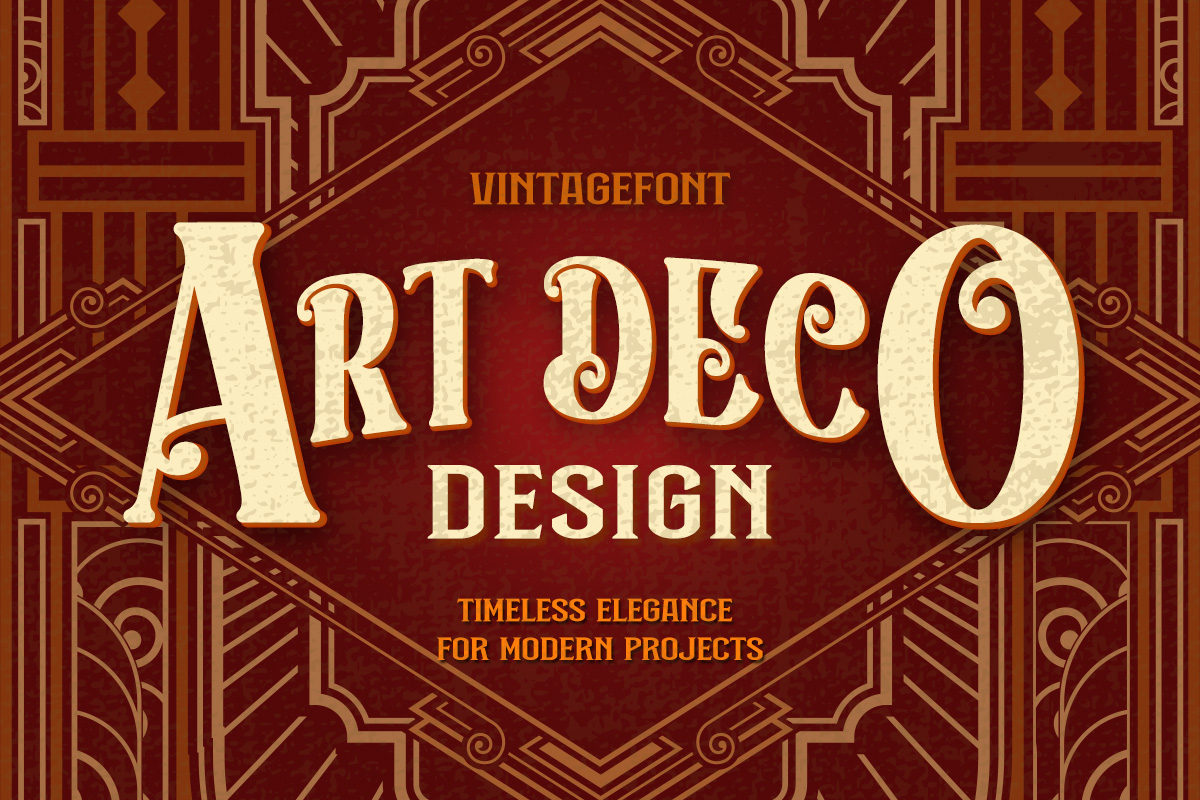
Art Deco Design: Timeless Elegance for Modern Projects
Have you heard about Art Deco? Art Deco is a design style that arose in the early twentieth century. This style continues to have an impact on the design world to this day.
This style emerged as a result of an exhibition held by the Paris art community. This exhibition featured a lot of artwork. Everything, from the metalwork to the interior design, looked fresh in a modern way. Its aim was to introduce and strengthen decorative art as a recognized type of art among the public and media. As a result, one of the most influential design movements in history emerged: Art Deco.
Art Deco is often used in architecture, graphics, and fashion design. This style radiates a glamorous vibe that suits a variety of design requirements. Because of its lavish architectural design, Art Deco was able to capture the elegance and creativity of the Empire State Building era.
So, what makes Art Deco so interesting? This article will delve deeper into its history and the creation of Art Deco. We will also discuss why Art Deco has had a significant impact on today’s design world. Without further ado, let’s jump right into it!
Art Deco History
When talking about history, the first thing that came to mind was, “When did Art Deco start?” Art Deco began in the early twentieth century, specifically from the 1920s to the 1930s. This style appeared during the 1925 Exposition Internationale des Arts Décoratifs and Industriels Modernes in Paris.
At that time, many artists throughout France joined this exposition. These artists joining were from many fields, including jewelers, graphic designers, painters, architects, and fashion designers. The artworks showcased things that were not only practical, but they also had beautiful, decorative designs.
In reality, Art Deco was once almost forgotten, and its popularity started declining in the middle of the twentieth century. However, this style began regaining its name in 1966 when the renowned architect, Le Corbusier, wrote an article entitled 1925: Arts Déco. The article talked about the distinctness and the glory of the Art Deco style. This later made people once again feel interested in the style.
Art Deco’s appeal grew after it was featured in the retrospective exhibition Les Années ’25: Art Deco / Bauhaus / Stijl / Esprit Nouveau. However, Bevis Hillier’s 1968 book Art Deco of the 20s and 30s cemented the Art Deco style’s status as an iconic design trend.
What is Art Deco Design?
Art Deco is one of many vintage styles known for its elegant, symmetrical, and expensive appearance. This style emerged in the 1920s to 1930s and was often used in many fields, such as architecture, fashion, and interior design.
Art Deco design is a popular design style we can utilize in posters or logos to create a modern, luxurious, and elegant look. The characteristics of this style are its sharp lines, geometrical shapes, chevron motifs, symmetrical patterns, and bold colors.
Art deco design elements
Art Deco design appears sophisticated because it incorporates characteristics influenced by the growth of industry and the art world. This style combines a sophisticated, stylish, and futuristic vibe with a cubist shape, making it timeless even in the modern period.
The following are some characteristics of the Art Deco design elements utilized in graphic design:
Typography
Clean lines, sharp edges, and machine-inspired designs are typical of Art Deco design. As a result, the typography used in this sort of design is often sans-serif typefaces with geometrical shapes, giving the design a dramatic and expensive appearance.
Geometrical Patterns
Geometrical patterns like zig-zag, chevron, and other symmetrical shapes give a dynamic and energetic vibe. We can utilize this pattern in walls, logos, or graphic decoration because of its neat yet appealing look.
Striking and Contrasty Colors
This style relates a lot with colors like gold, black, red, dark blue, and other metallic colors. Gold and black can give a modern and luxurious feel, whereas red and dark blue present a brave and powerful vibe. This color combination can definitely attract attention and create a lavish appearance.
Figurative Illustration
Figurative illustrations in Art Deco might take the form of a human posing elegantly and energetically. We can typically find this sort of image on movie posters and advertisements. This style is minimal yet appealing because it uses sharp lines and beautiful curves to give a design a modern and progressive feel.
Why is Art Deco Design still so relevant today?
Art Deco, despite its century-long history, maintains its prominence in design due to its unique blend of uniqueness and versatility. As a style prioritizing aesthetics, sophistication, and modernity, its enduring popularity can be attributed to the following key factors: